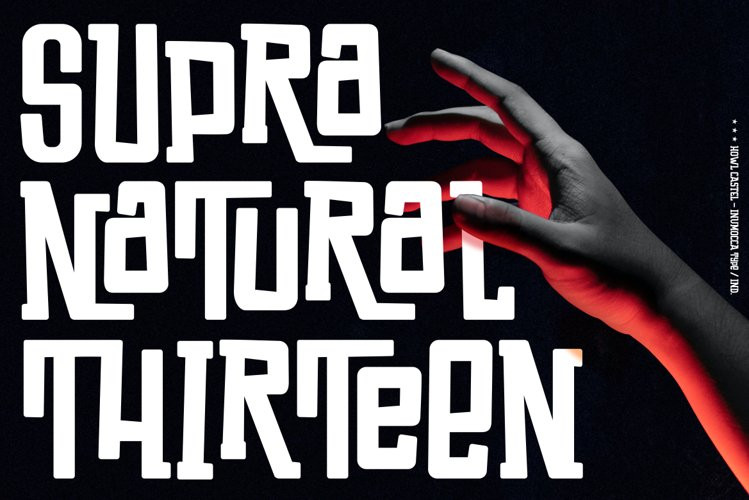
Howl Castel Font
Howl Castel FontHowl Castel is Vintage and Modern Display Font,
Handlettering Bold Font, Powerfull and has a very Strong Character,
Great for expressing a summer,The Typeface comes with Stylistic Alternates and Ligature Combinations
Exellent typeface to use for covering your Project,
like Branding, Headline Letter, Flyer, Signage, Quotes, Poster Typography,
Bookcover, Magazine cover, Poster, Quotes Lettering, Logos, and more your project design.